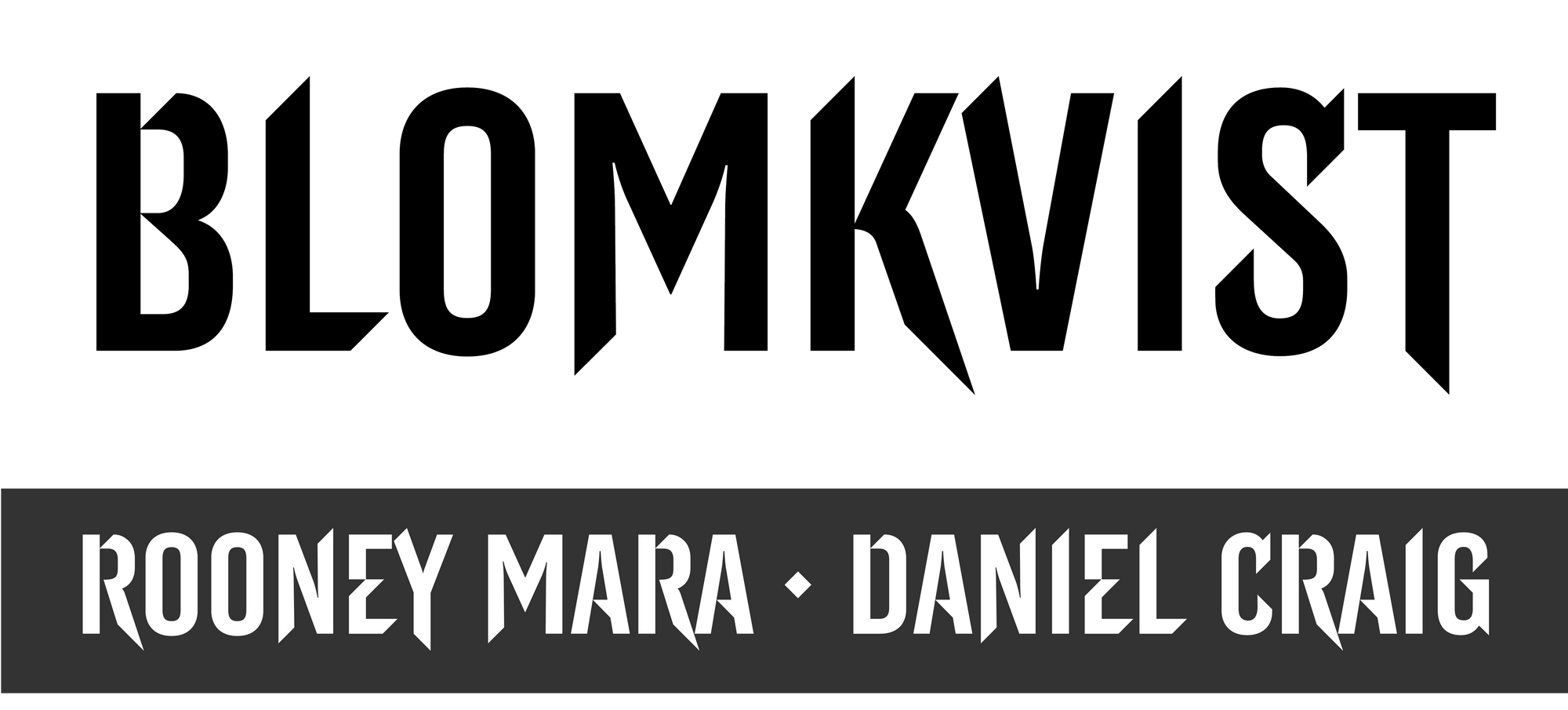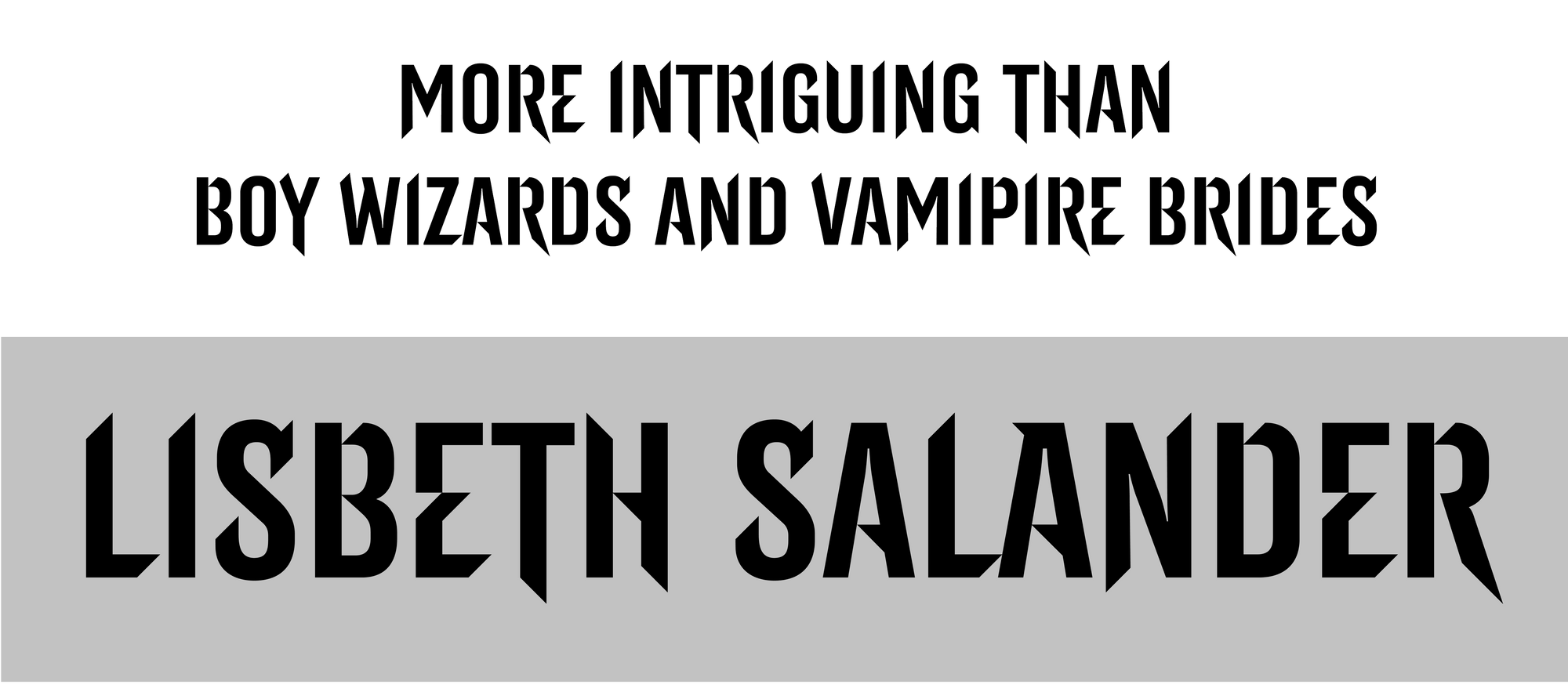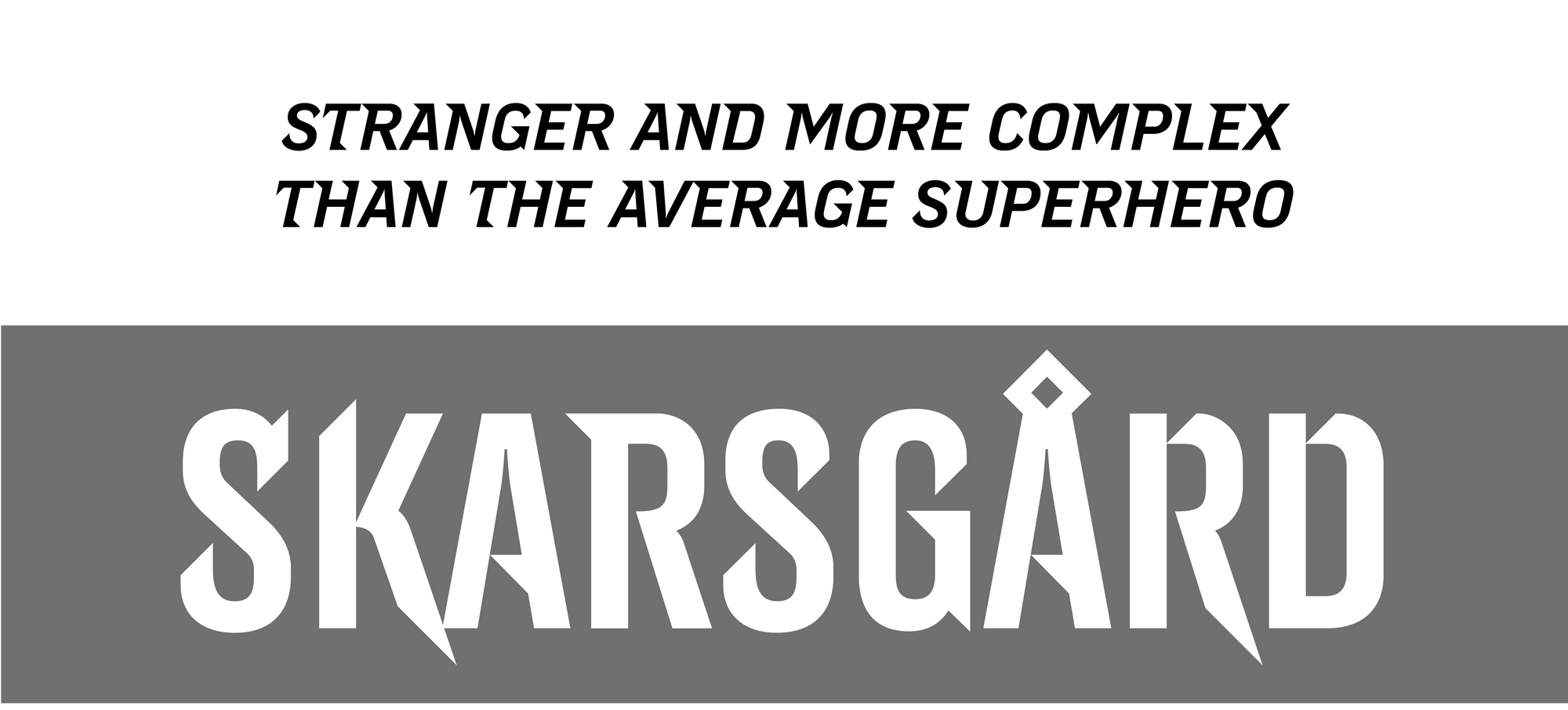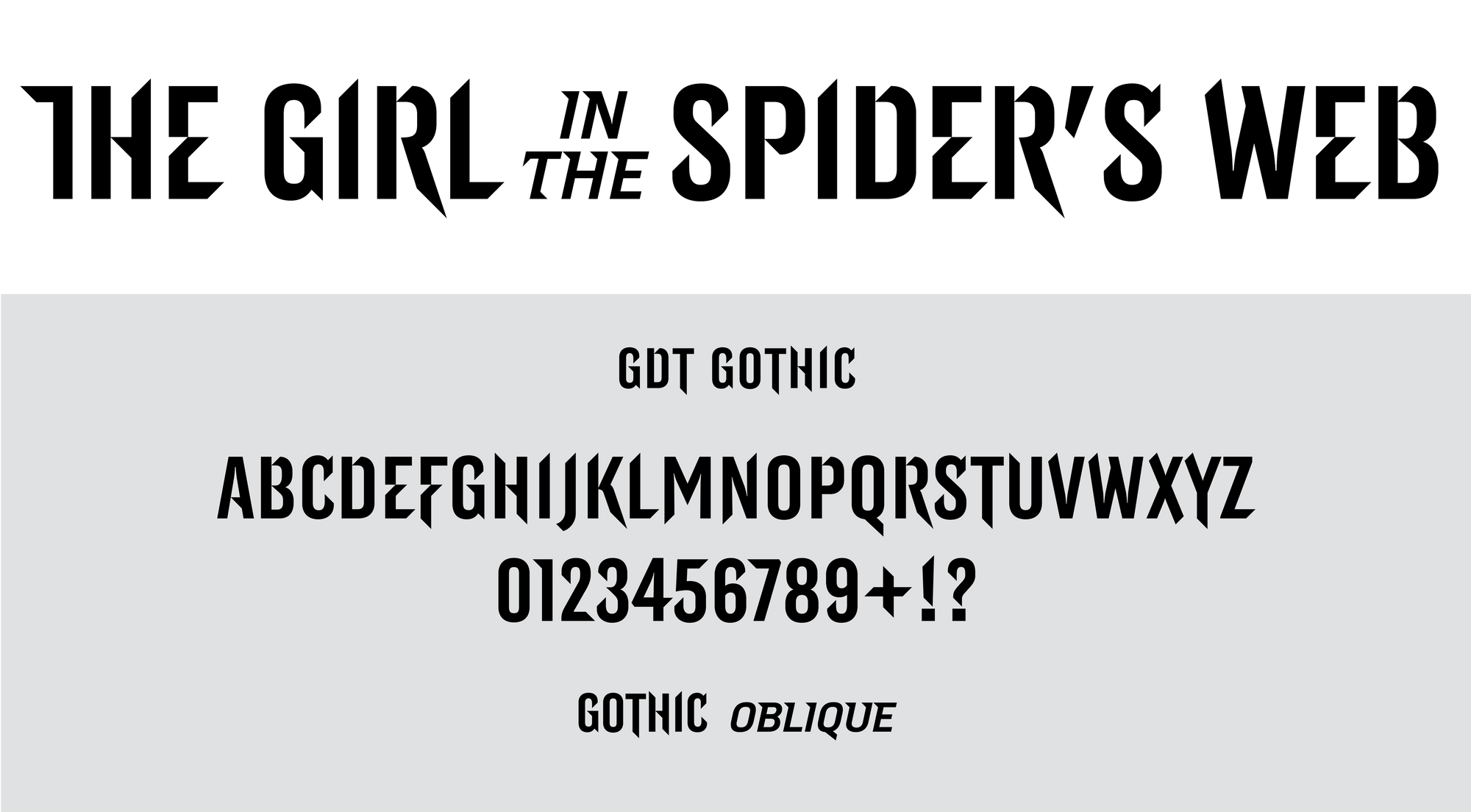
GDT Gothic, The Girl with the Dragon Tattoo, Kellerhouse Design Inc.
In creating the identity for the film, The Girl with the Dragon Tattoo, designer Neil Kellerhouse envisioned the need to create a full functioning font using the logo's typography and components as a template. Under the direction of Kellerhouse, LuxTypo assisted in the expansion of the type into a functioning, keystroke-font that served as part of the visual language developed by Kellerhouse. Application of the font included promotional verbiage as well as serving as the title lettering for the foreign markets.